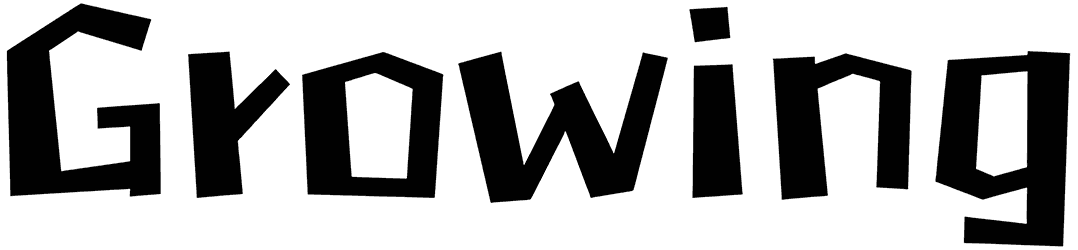
HF Growing Font
A cute cartoon font like HF Growing can be whimsical for many topics and make your layout hard to forget. This cartoon font has perfect coverage of characters, and this feature will give you a nice freedom in use. It can be a school poster or a toy store sign; this free font will work well.